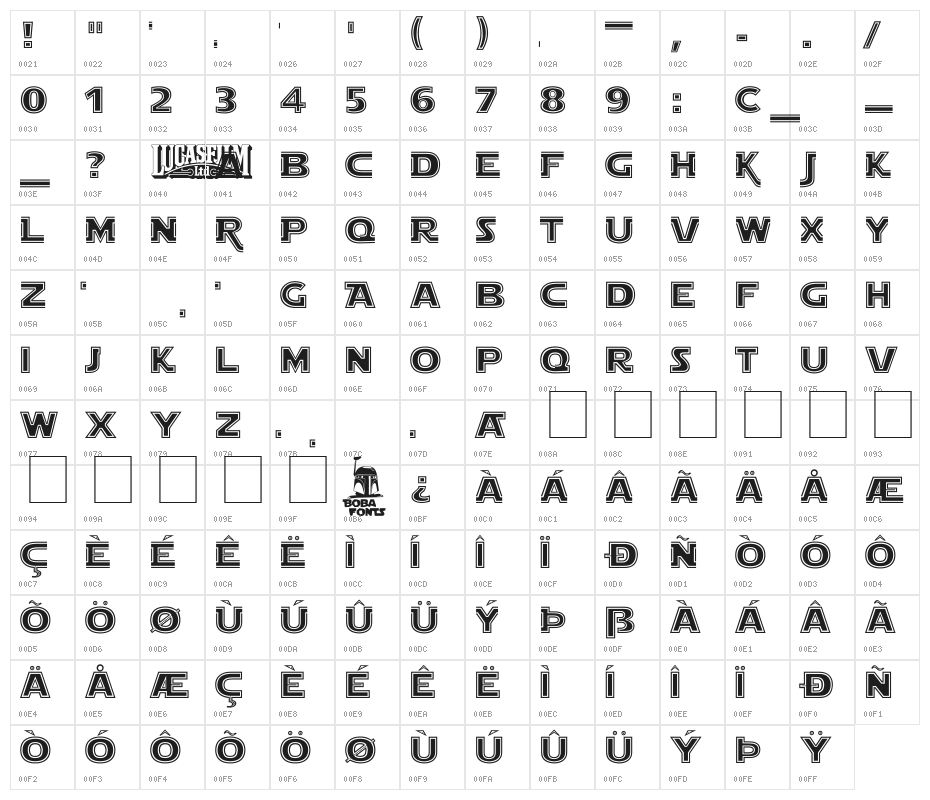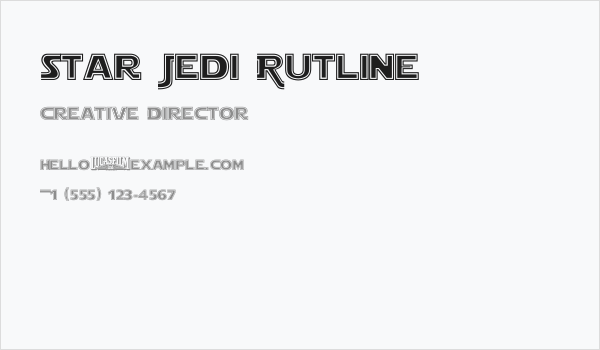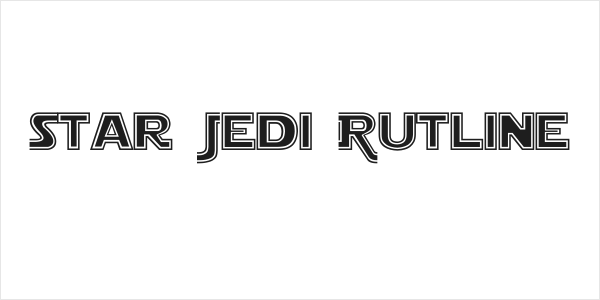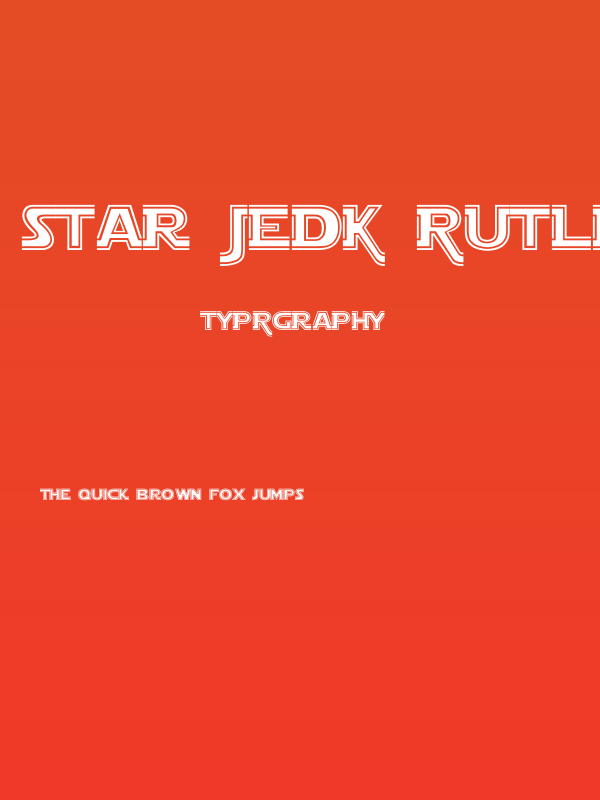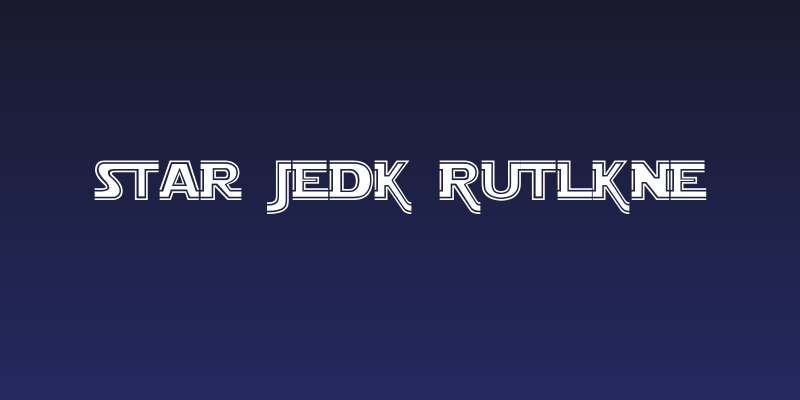
Star Jedi Outline Font
Star Jedi Outline Description
This font features a bold, futuristic design with an outline style that gives each character a distinct, three-dimensional appearance. The geometric shapes and sharp angles create a sense of movement and energy, reminiscent of sci-fi themes. The uppercase letters are particularly striking, with a consistent thickness that enhances readability while maintaining a unique aesthetic. The numbers and special characters follow the same design principles, ensuring a cohesive look across all text elements. This font's outline style adds depth and dimension, making it ideal for eye-catching designs.
| Overall Style | Futuristic, Sci-Fi |
| Proposed Projects | Ideal for sci-fi themed projects, movie posters, video game titles, and branding that requires a futuristic look. |